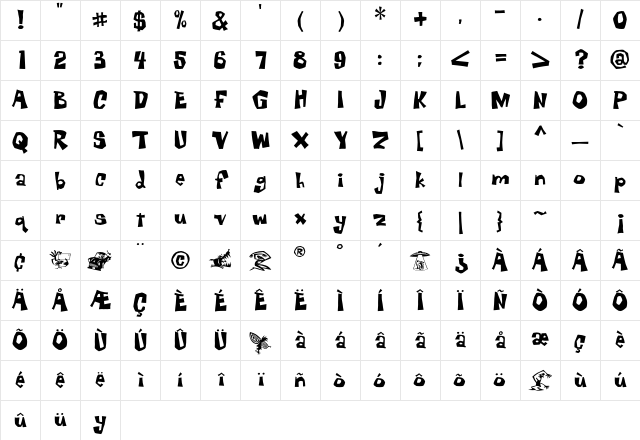
Whutevur Regular Free Font
Whutevur Regular
Design Context for Whutevur
Whutevur is a composed and adaptable typeface that performs quietly and consistently across a wide range of design contexts.